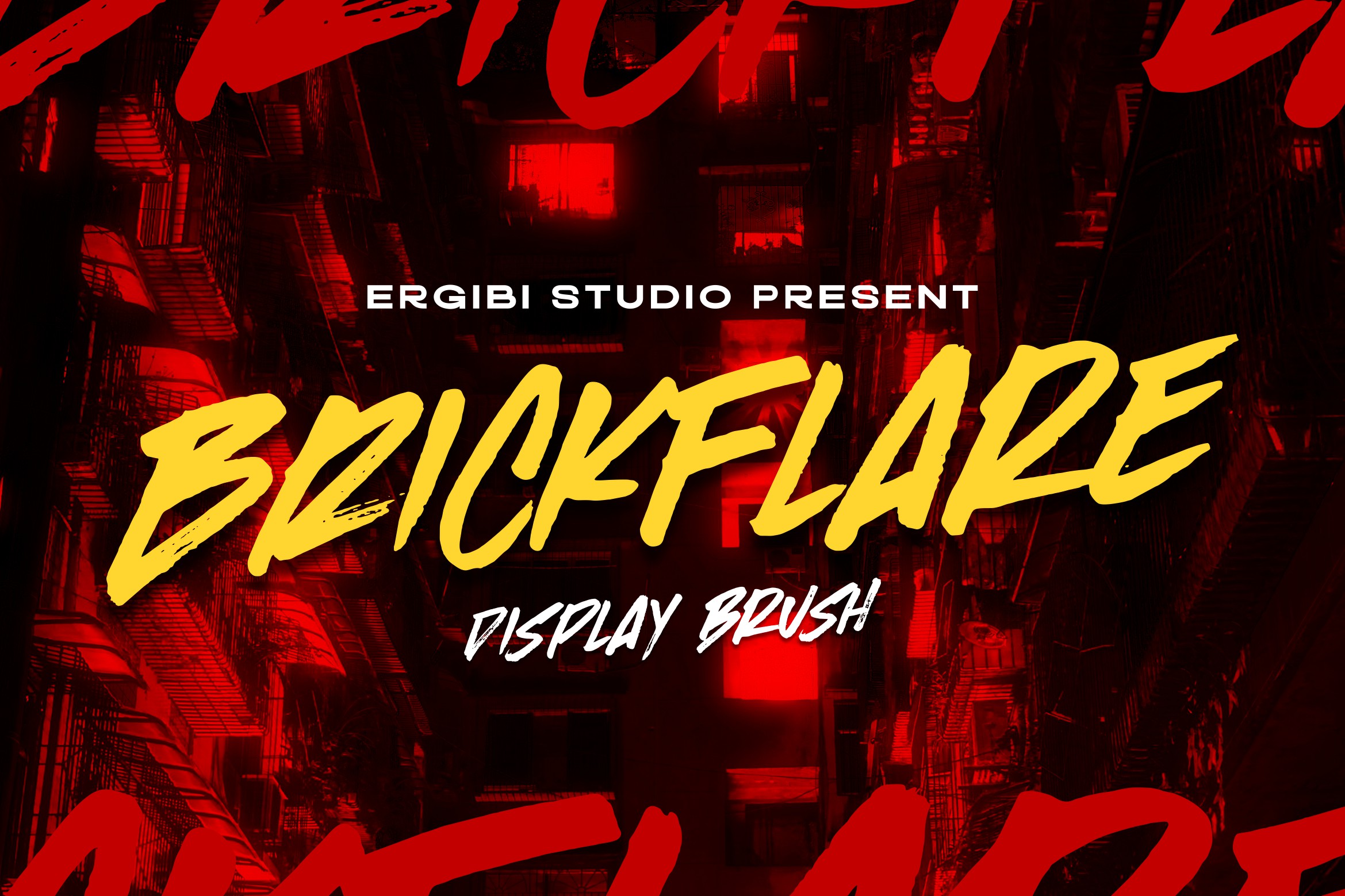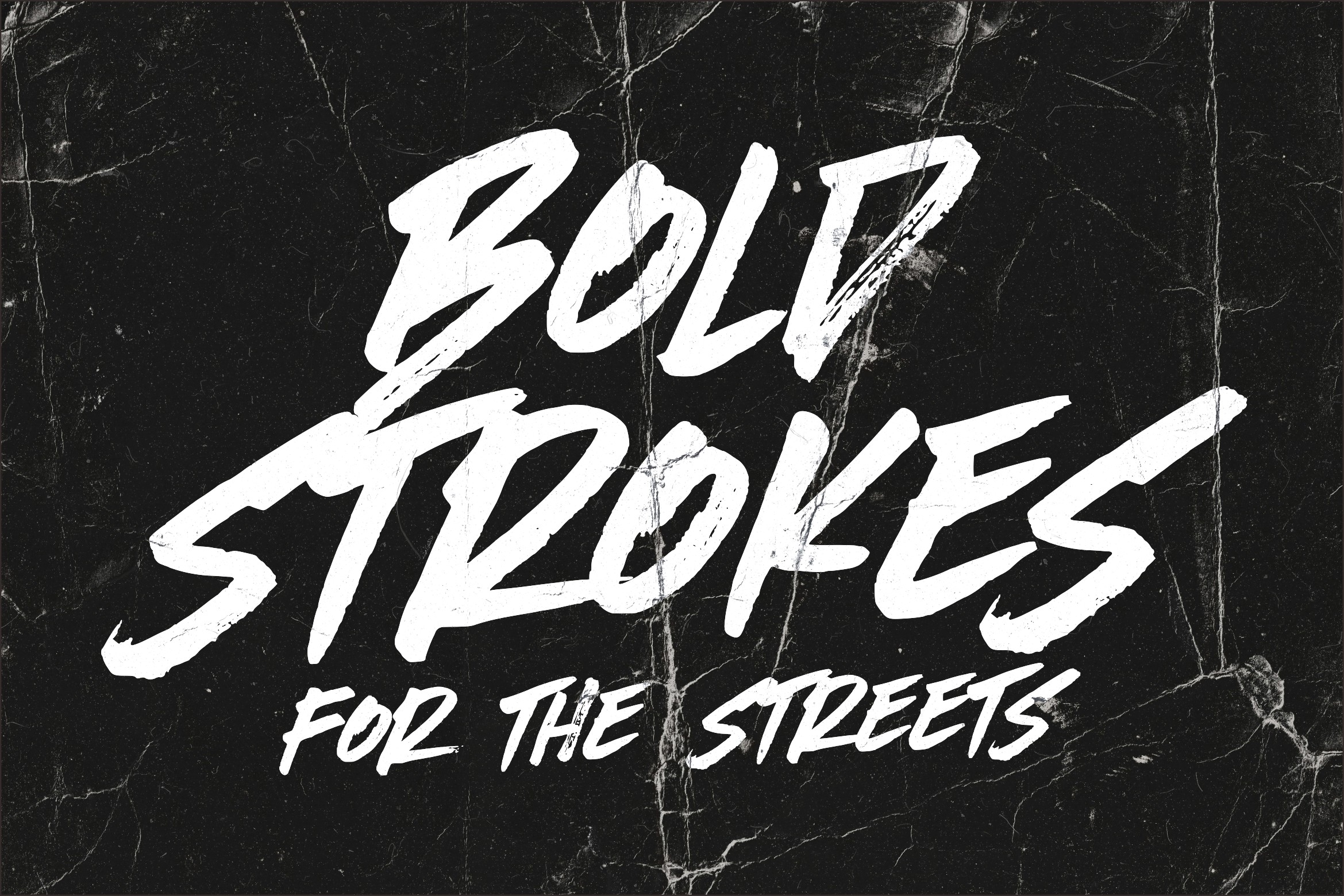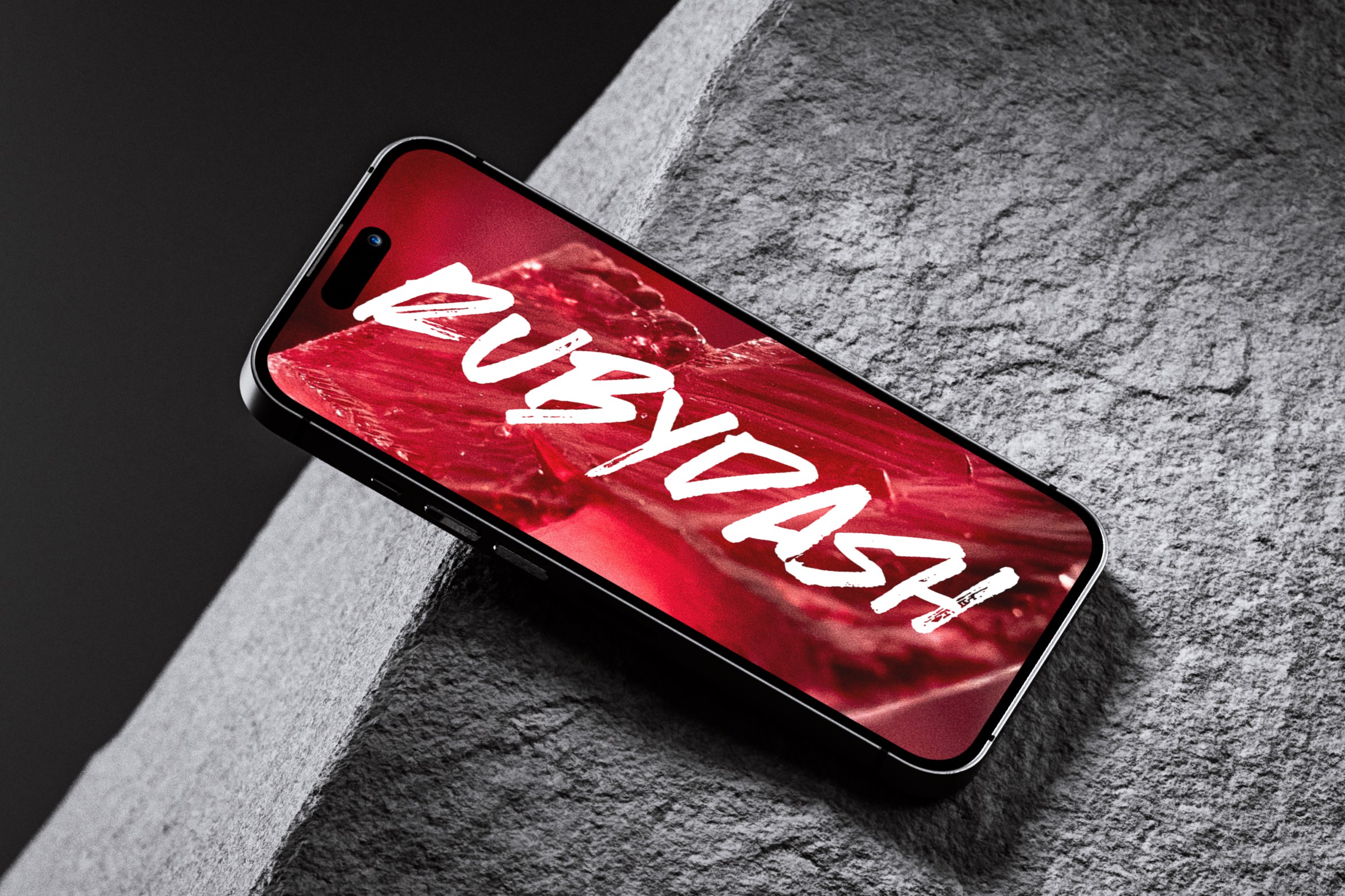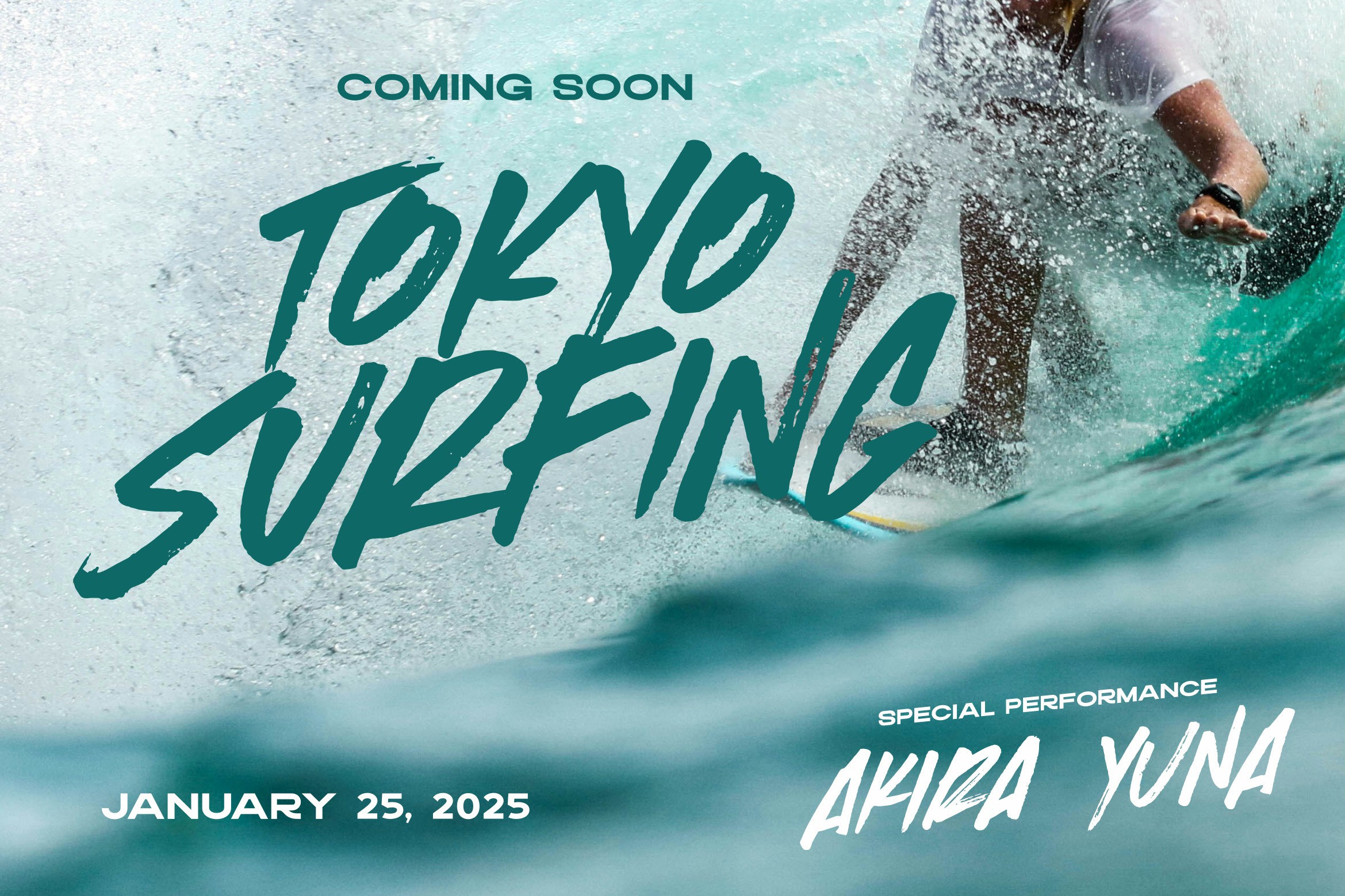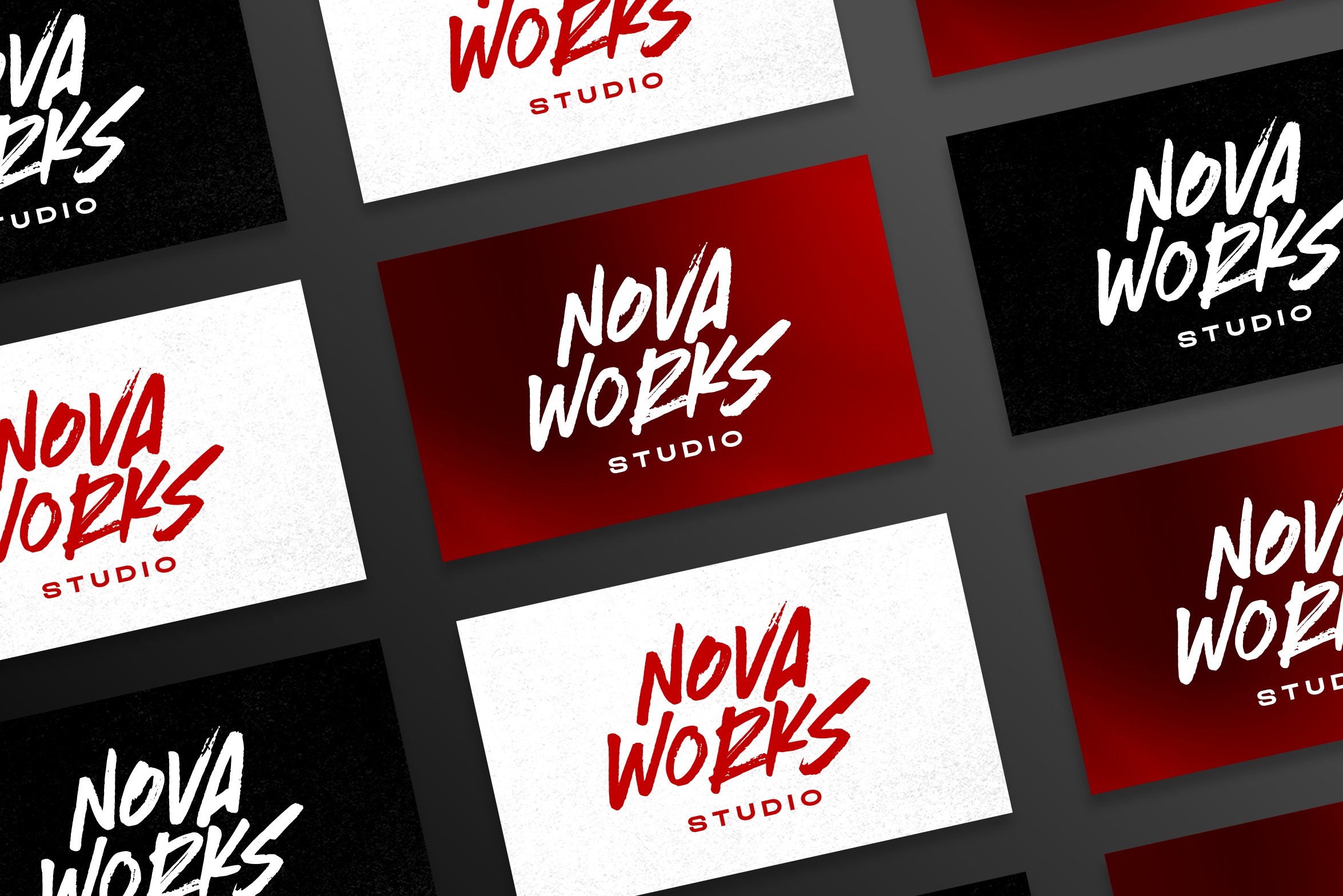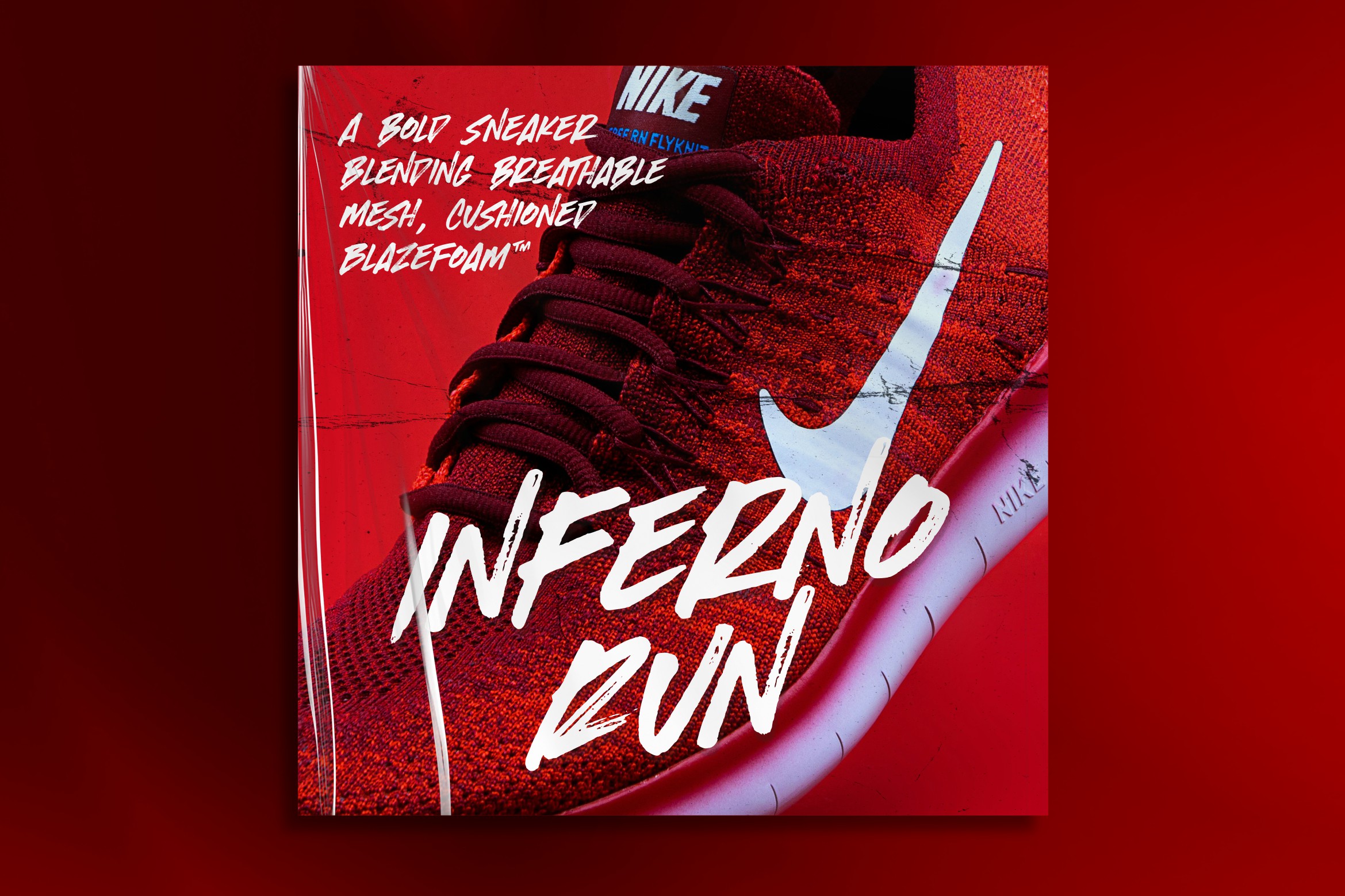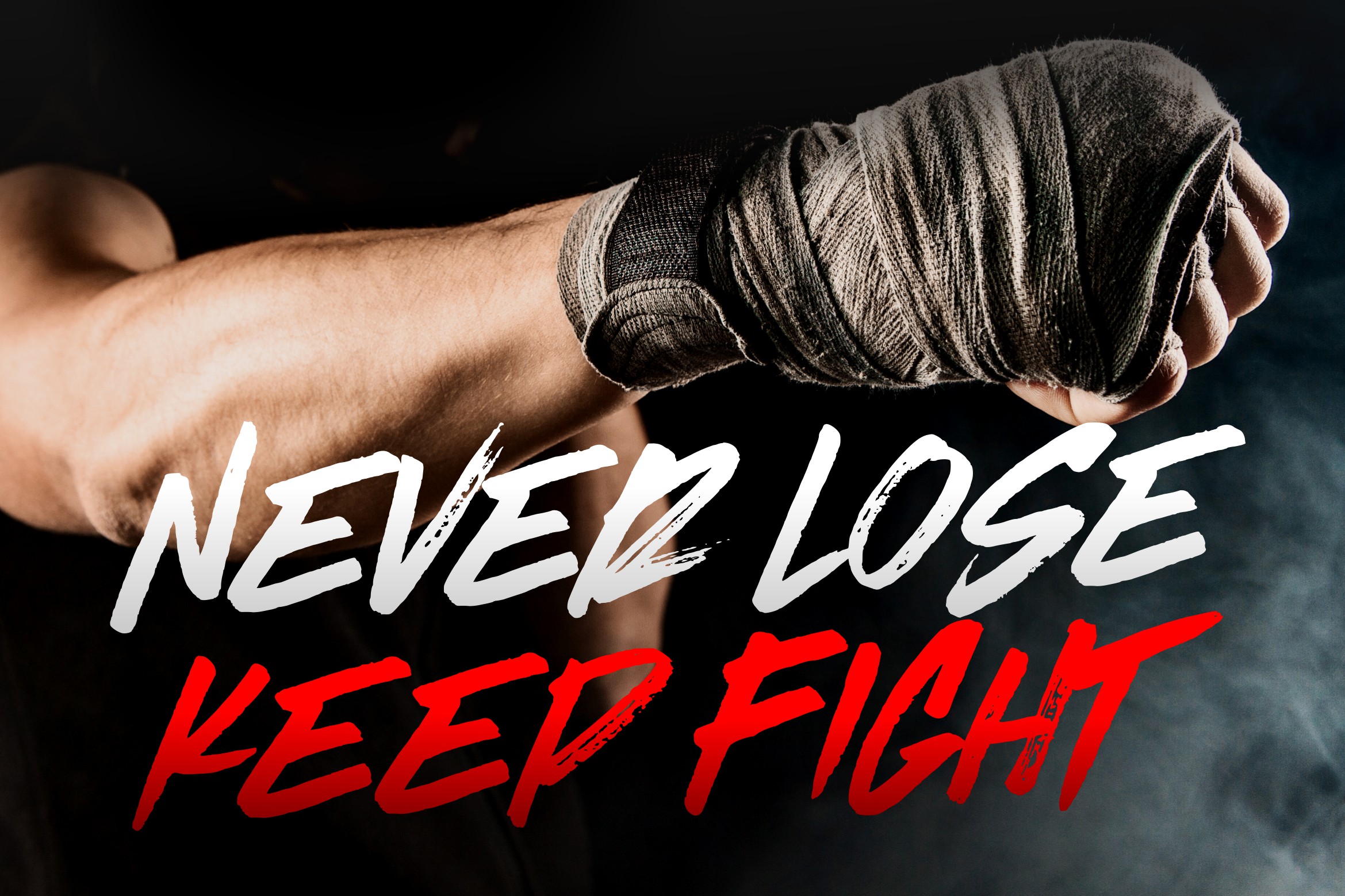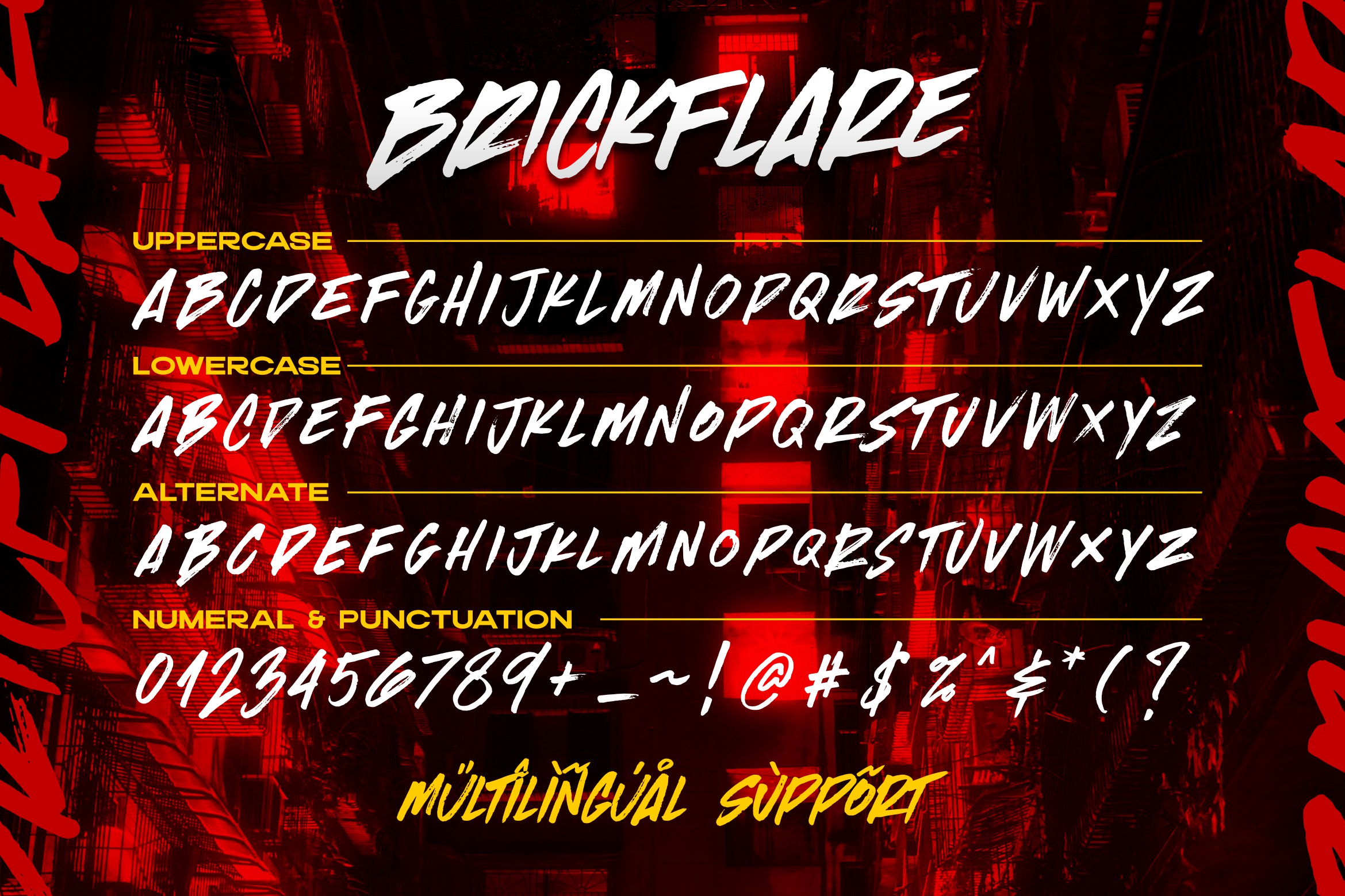
Brickflare is a high-octane typeface packed with bold, expressive strokes and rugged details. Designed entirely in uppercase with powerful all-caps energy, Brickflare delivers intense visual impact. It’s perfect for streetwear, posters, logos, quotes, product packaging, or any project craving an urban edge. With its dynamic brush style, Brickflare adds personality to every letter, ensuring your design stands out in the crowd.
- Ligatures
- International Accent